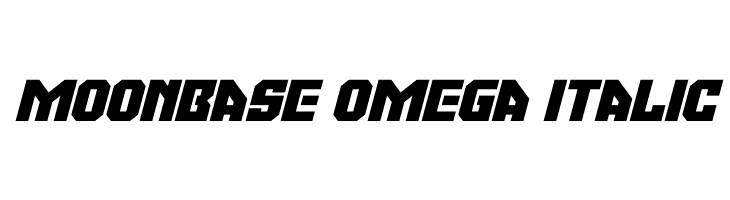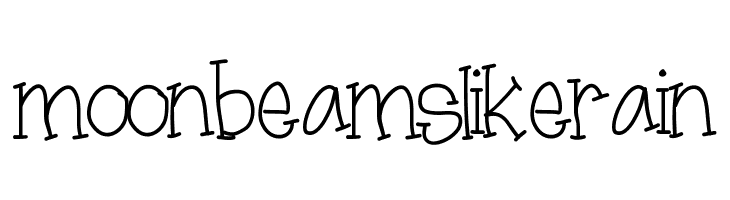
A bold, futuristic font with a condensed, high-contrast design.
A bold, italic, and condensed font with a modern, dynamic style.
A bold, condensed font with a modern, industrial style.
A bold, jagged font with a rough, energetic style.
A whimsical, handwritten font with tall, narrow uppercase and rounded lowercase letters.
A bold, textured script font with a hand-drawn, connected style.
A graceful script font with fluid, cursive lines and elegant curves.
A dynamic, cursive font with fluid strokes and a modern, stylish appearance.